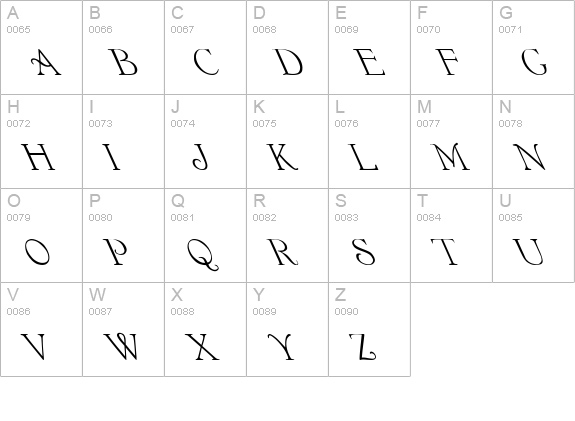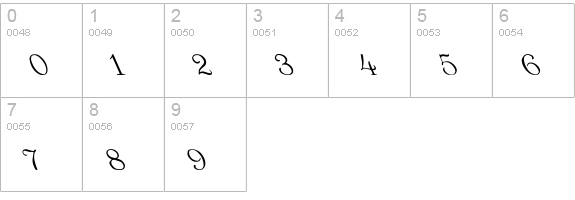
Garton Leftified Regular is the standard, neutral variant in the Garton typeface family \xE2\x80\x94 well suited to general body text, paragraphs, and standard typographic work.
Garton Leftified Regular is a classic and elegant font that exudes sophistication and style. With its clean lines and graceful curves, this typeface is perfect for a wide range of design projects, from branding to editorial design. The versatility of Garton Leftified Regular makes it a must-have in any designer's toolkit. What sets Garton Leftified Regular apart is its unique leftified design, which adds a modern twist to a traditional serif font. This feature gives the font a distinctive look that will make your designs stand out from the crowd. Best of all, Garton Leftified Regular is free to download at FontsMarket.com. Whether you're a seasoned designer looking to refresh your font collection or a newcomer in need of quality typography, Garton Leftified Regular is a fantastic choice. Don't miss out on this opportunity to enhance your designs with this beautiful and freely available font.